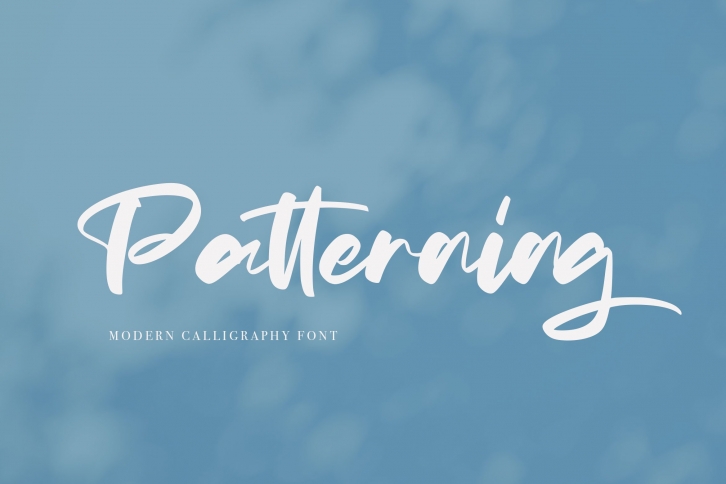
Patterning | Modern Calligraphy Font Download
Patterning is a trendy and unique font with an authentic style. It was designed by Vunira and it's a great choice for creative people who need such a font. It was released on July 5, 2020 and the file size is 21.77 MB. Patterning will add an organic vibe to any design idea!